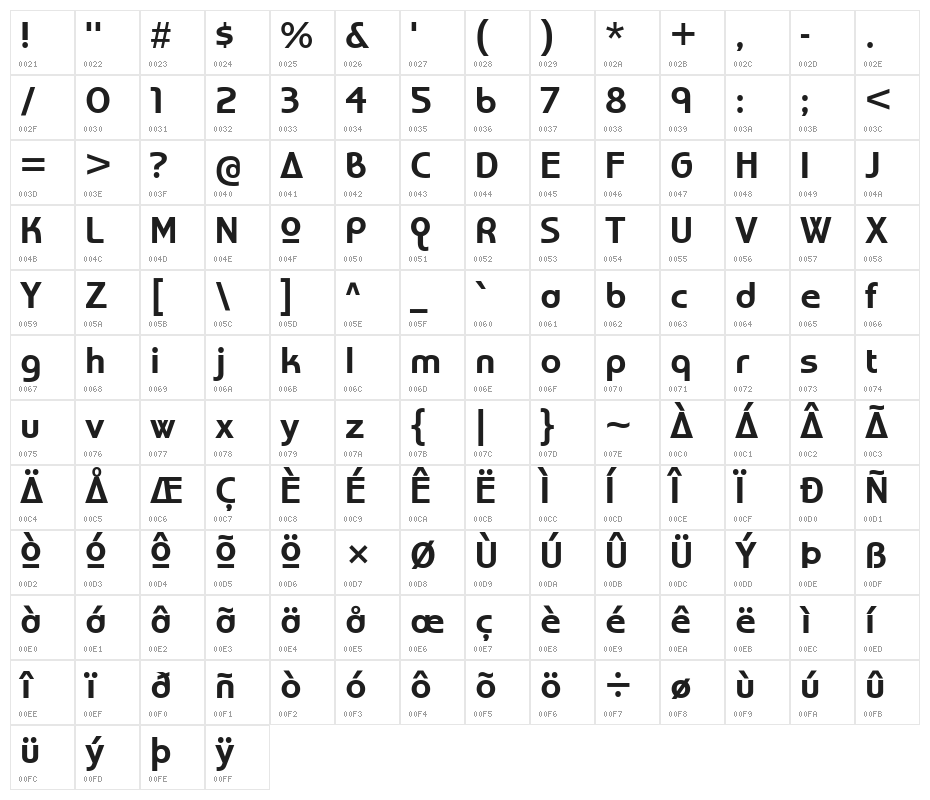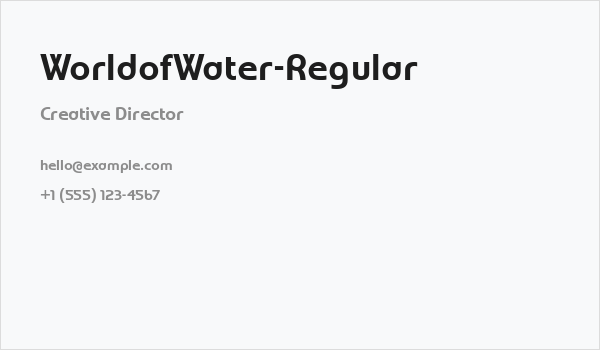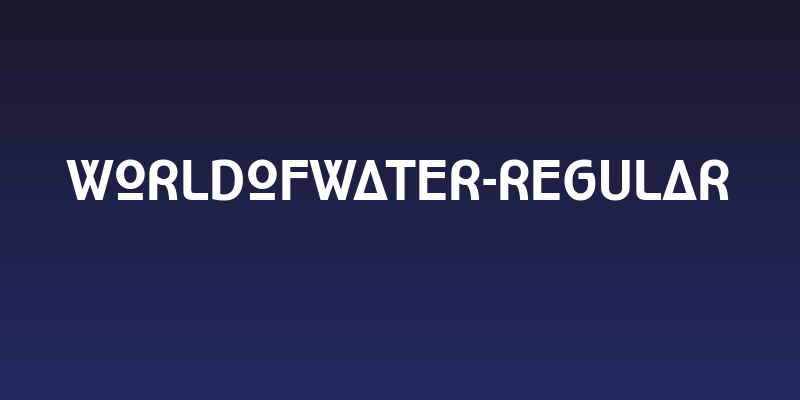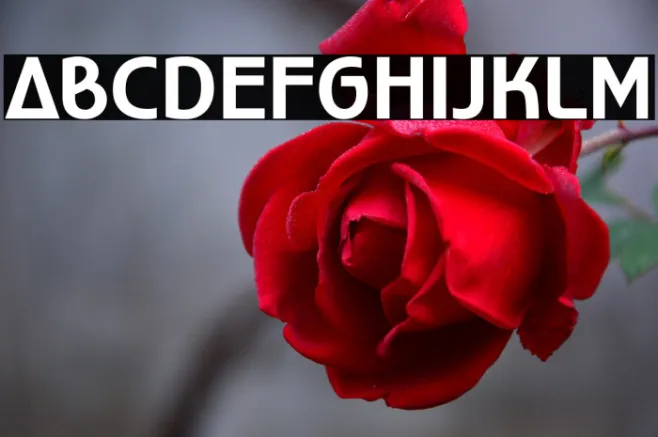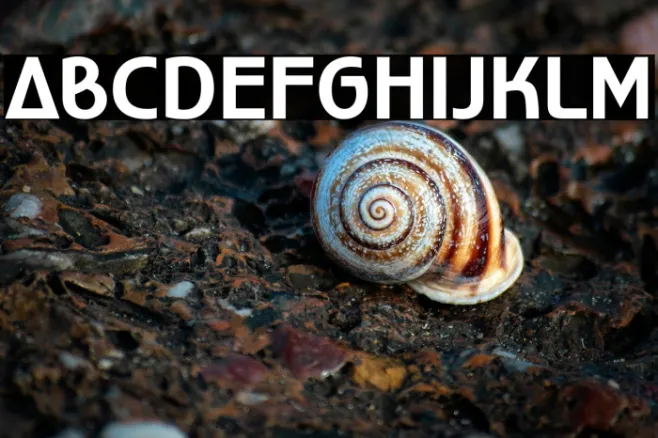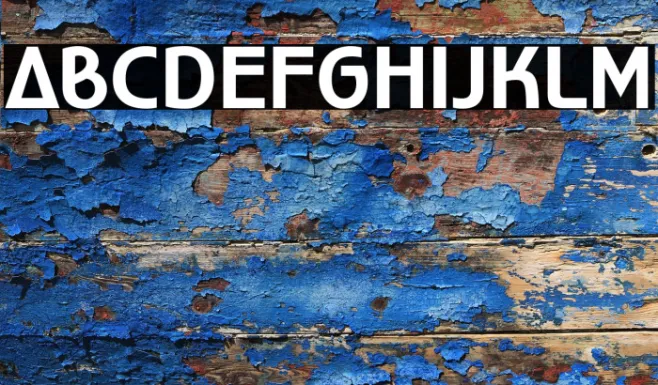
WorldofWater-Regular Font
WorldofWater-Regular Description
This font features a modern and geometric design with clean lines and a bold presence. The characters are crafted with a uniform stroke width, giving it a cohesive and structured appearance. The uppercase letters are slightly wider, providing a strong and assertive look, while the lowercase letters maintain a rounded and approachable feel. The numerals are consistent with the overall style, ensuring readability and balance. Special characters are well-integrated, maintaining the font's sleek and contemporary aesthetic. This font is versatile, suitable for various design applications where clarity and impact are desired.
| Proposed Projects | Ideal for branding, headlines, posters, and digital media where a modern and impactful look is needed. |